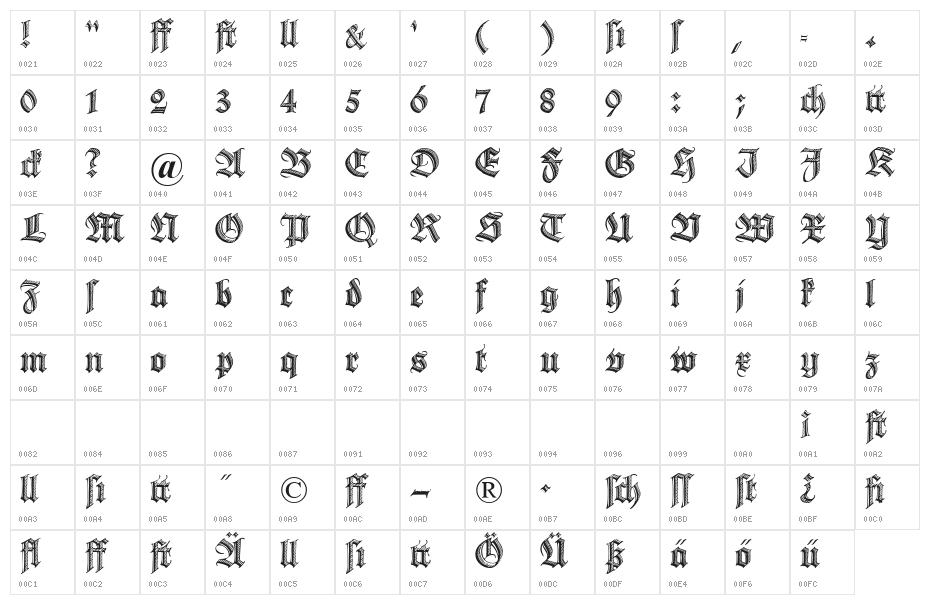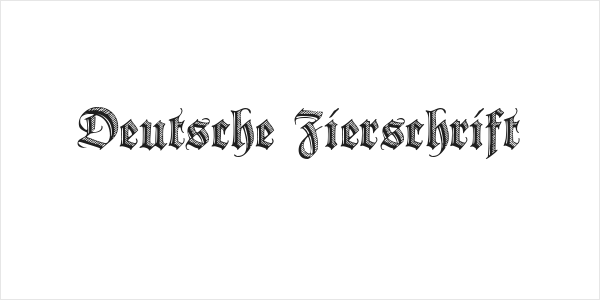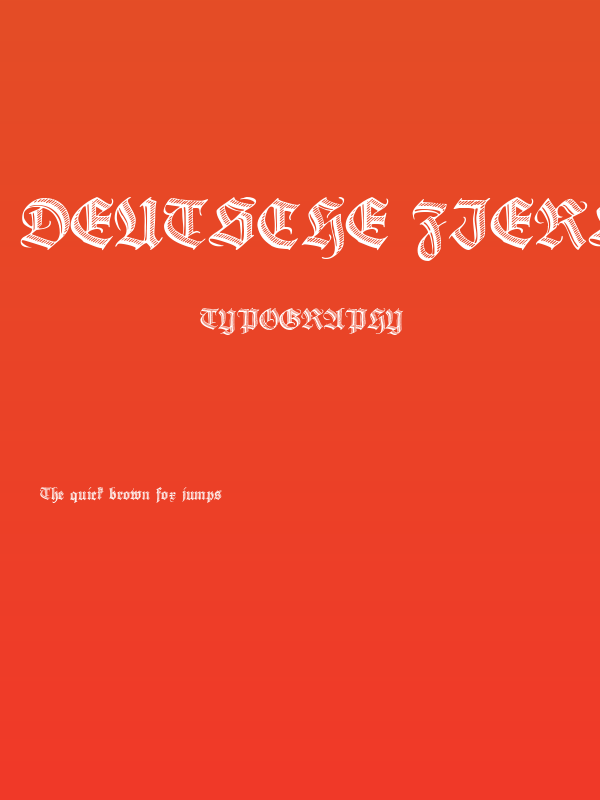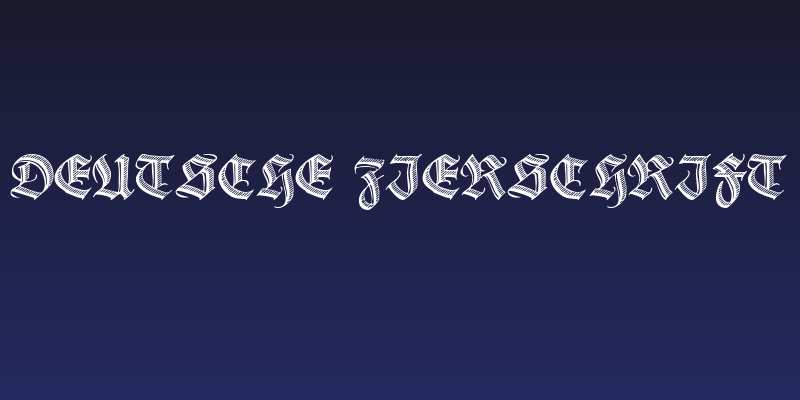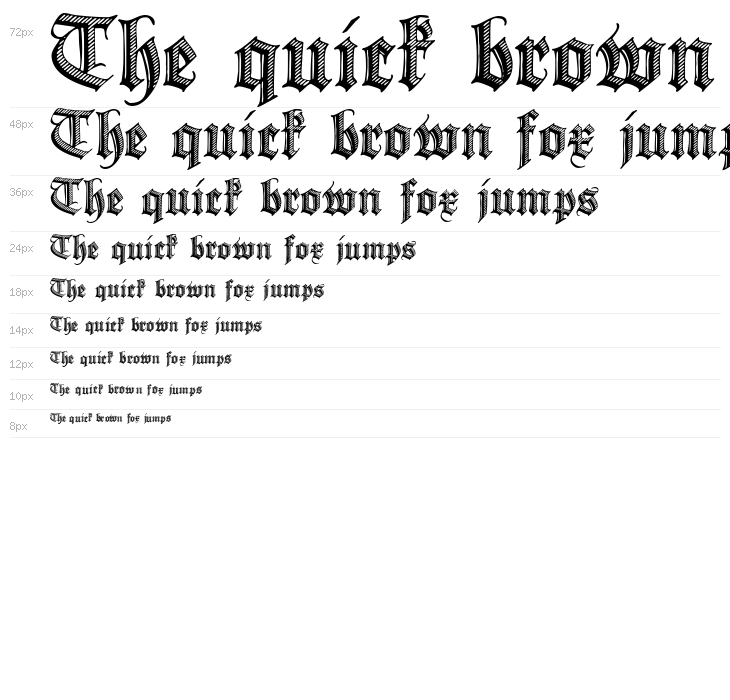
Deutsche Zierschrift Font
Deutsche Zierschrift Description
This font exudes a classic and ornate style, reminiscent of traditional German blackletter typography. Each character is intricately designed with sharp angles and decorative elements, creating a sense of historical elegance. The uppercase letters are bold and commanding, while the lowercase letters maintain a consistent flow with elaborate curves and flourishes. The numerals and special characters are equally detailed, contributing to the font's cohesive aesthetic. This typeface is ideal for projects that require a touch of vintage sophistication and cultural heritage.